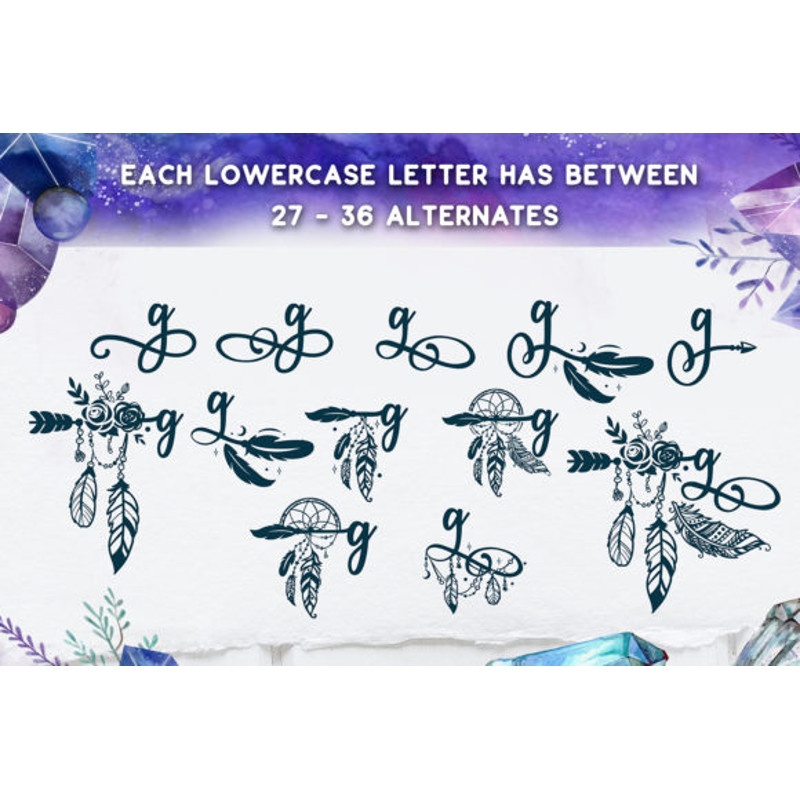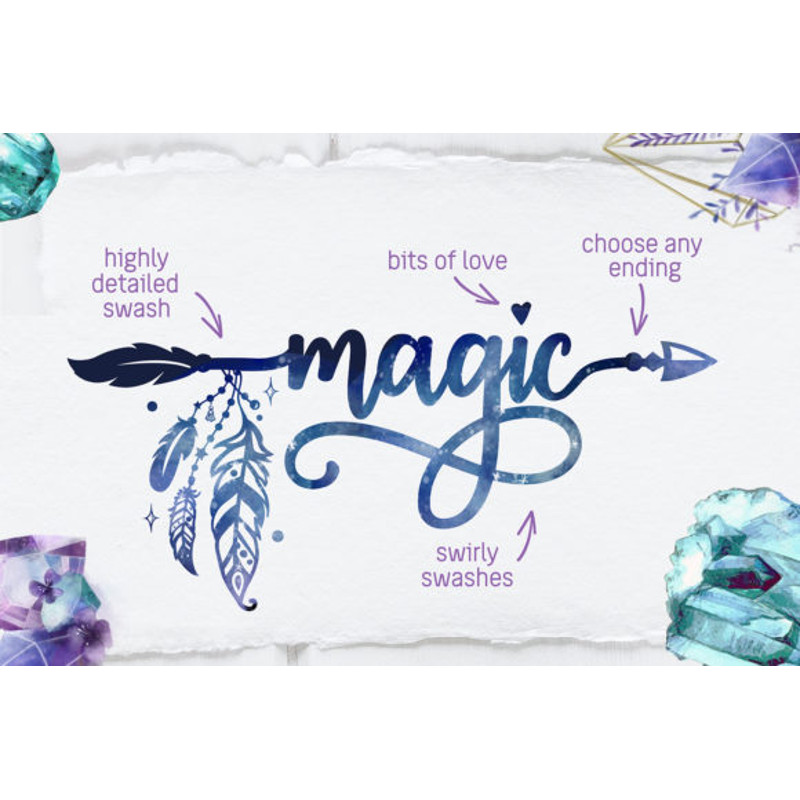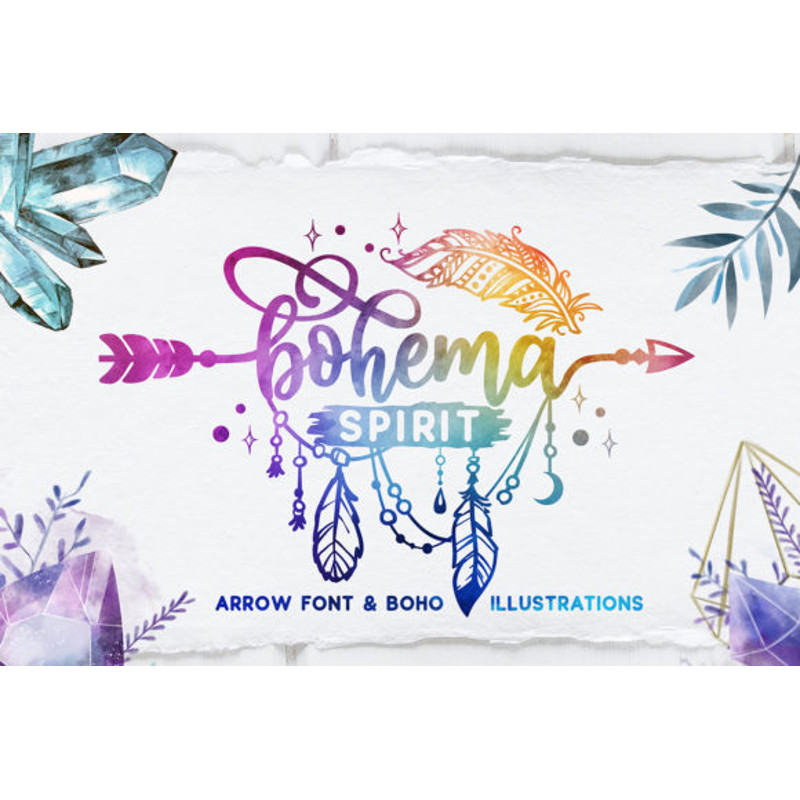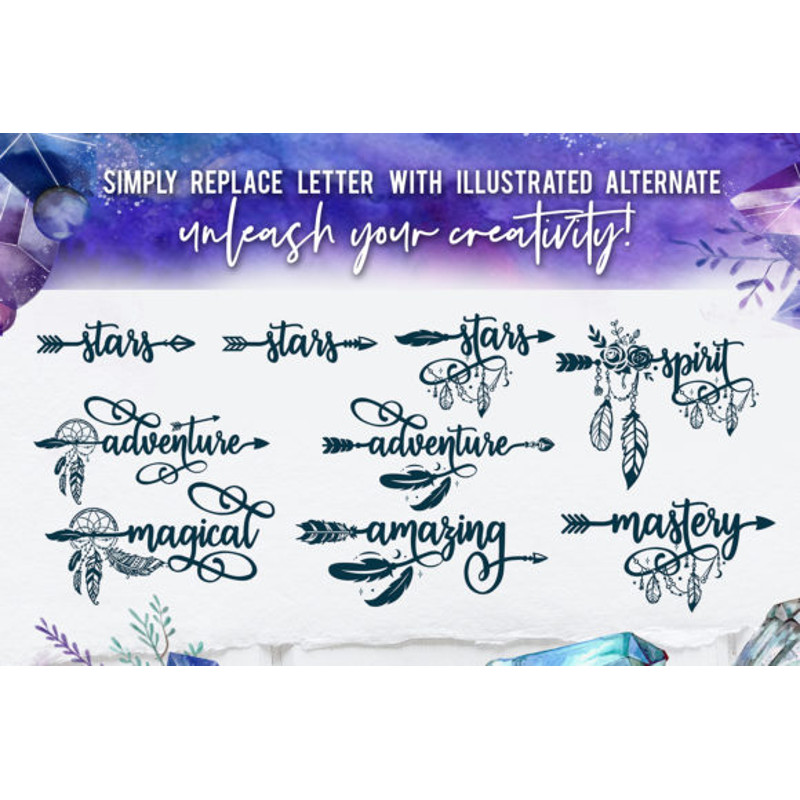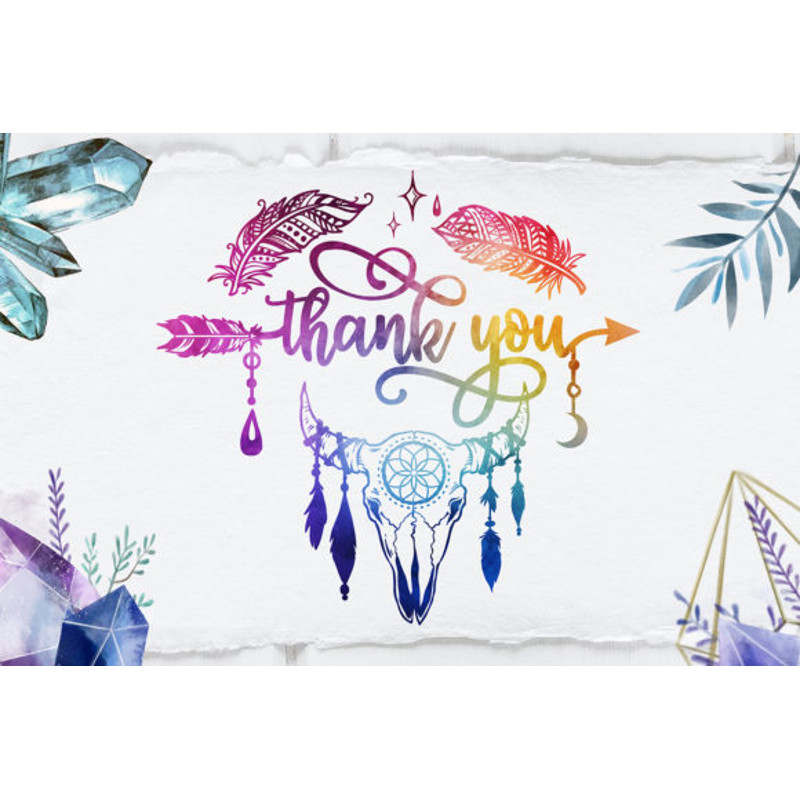
Bohema Spirit Font
Bohema Spirit is a beautiful and bold font with a unique feel and amazing elements. It is charming and elegant, and will inspire any design ideas that need that special touch.